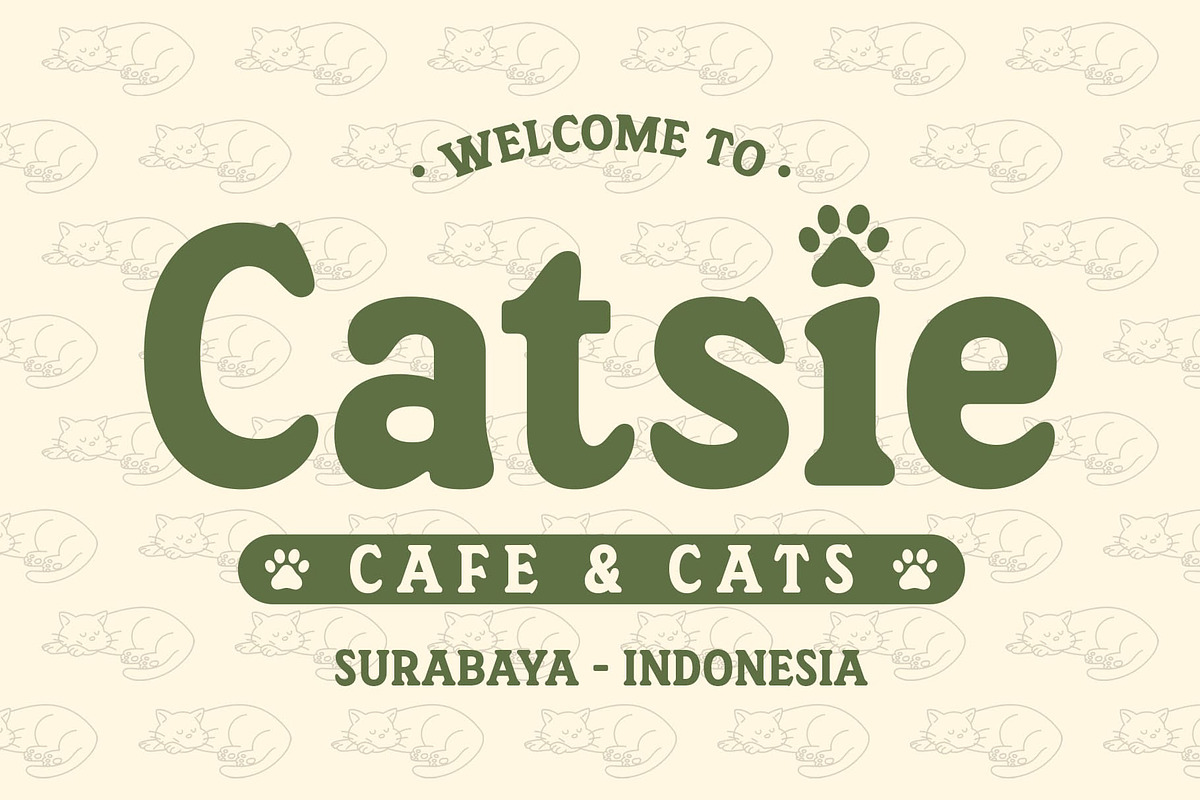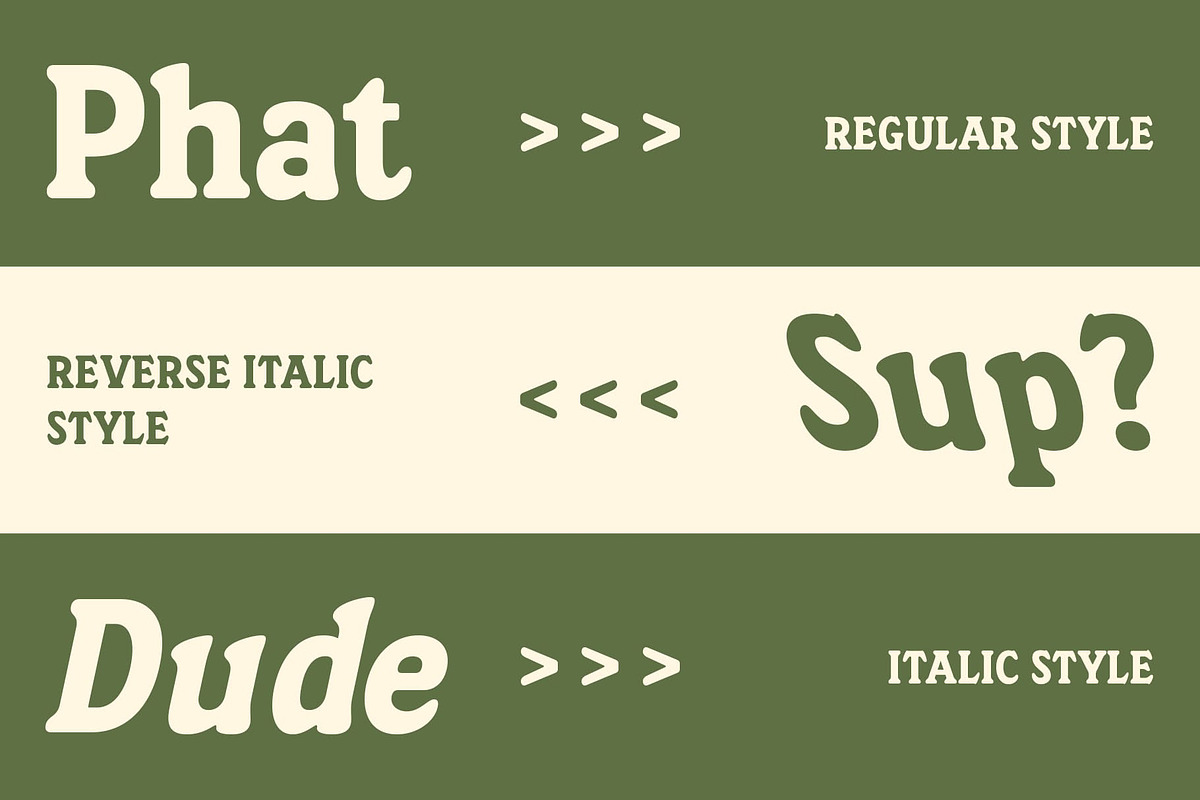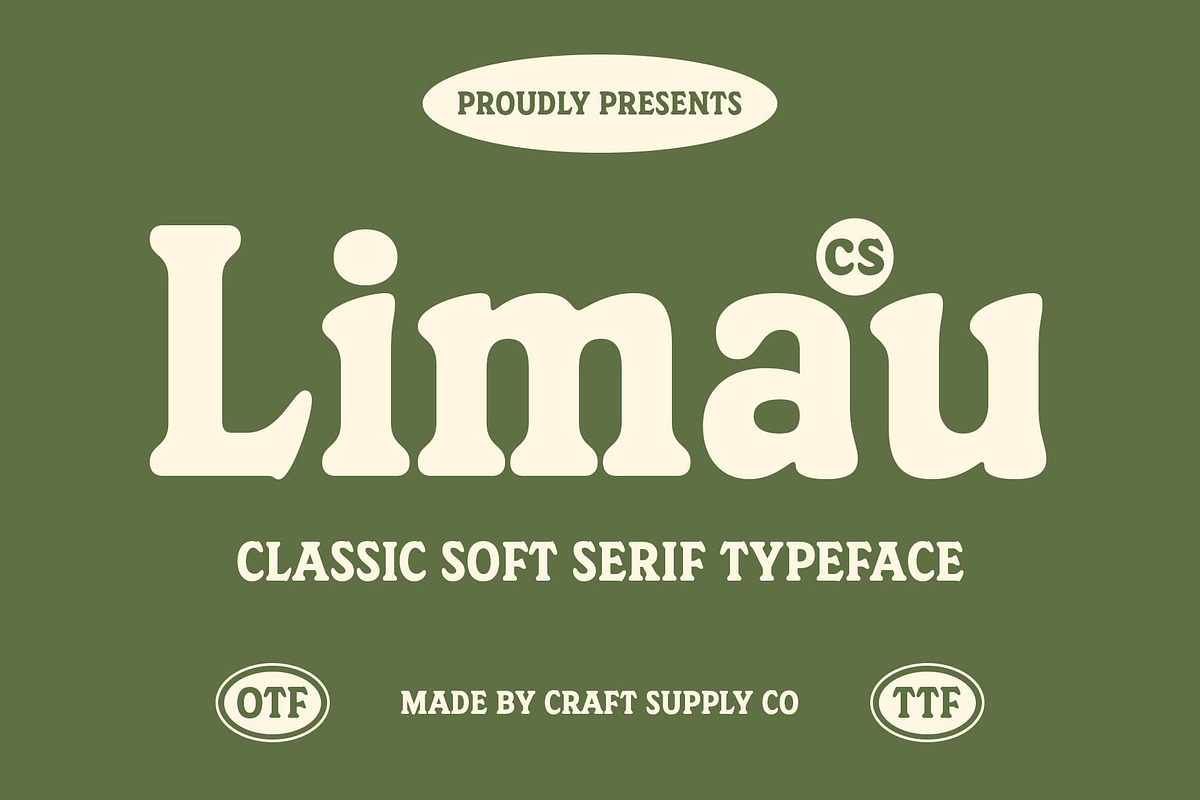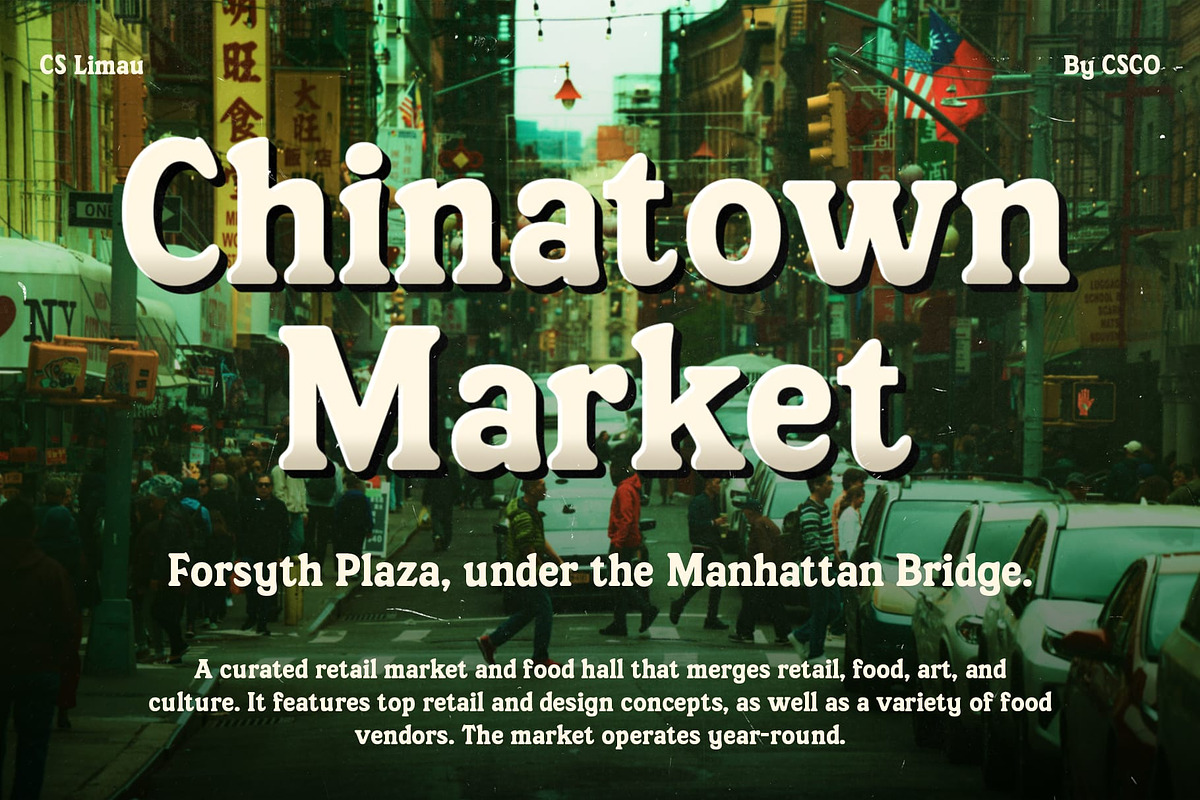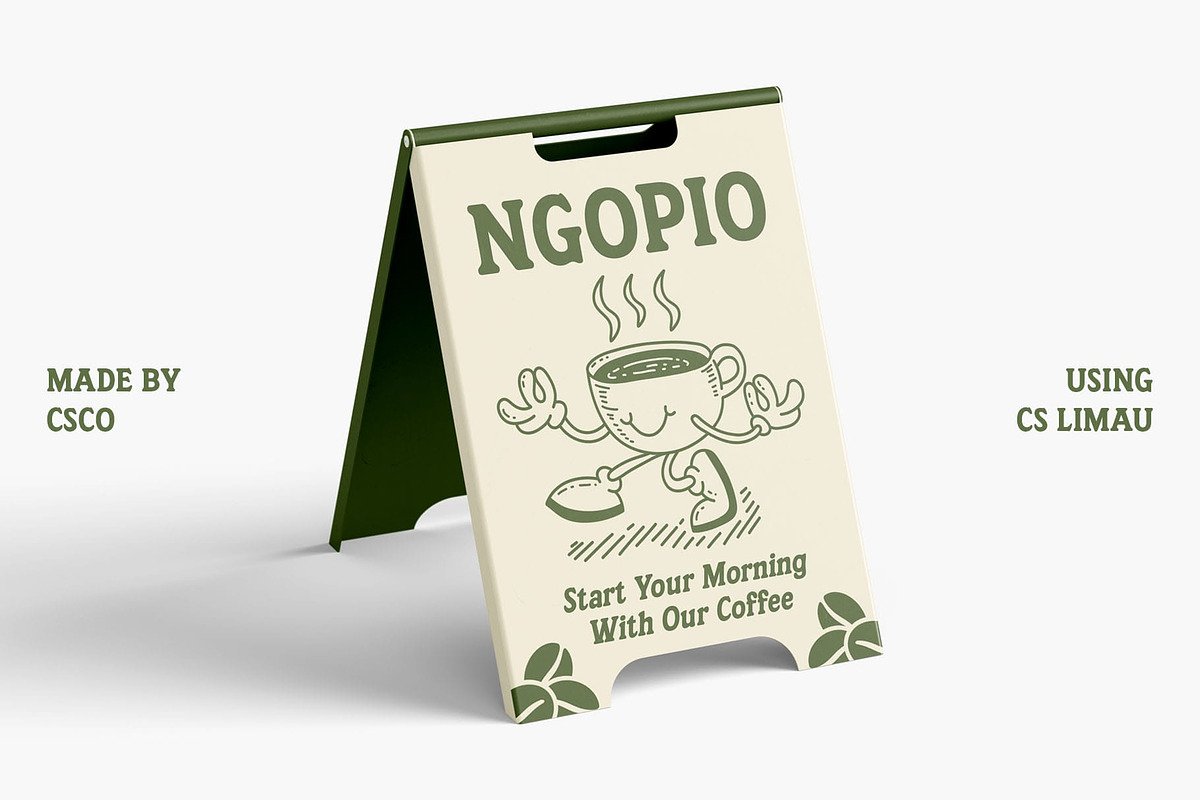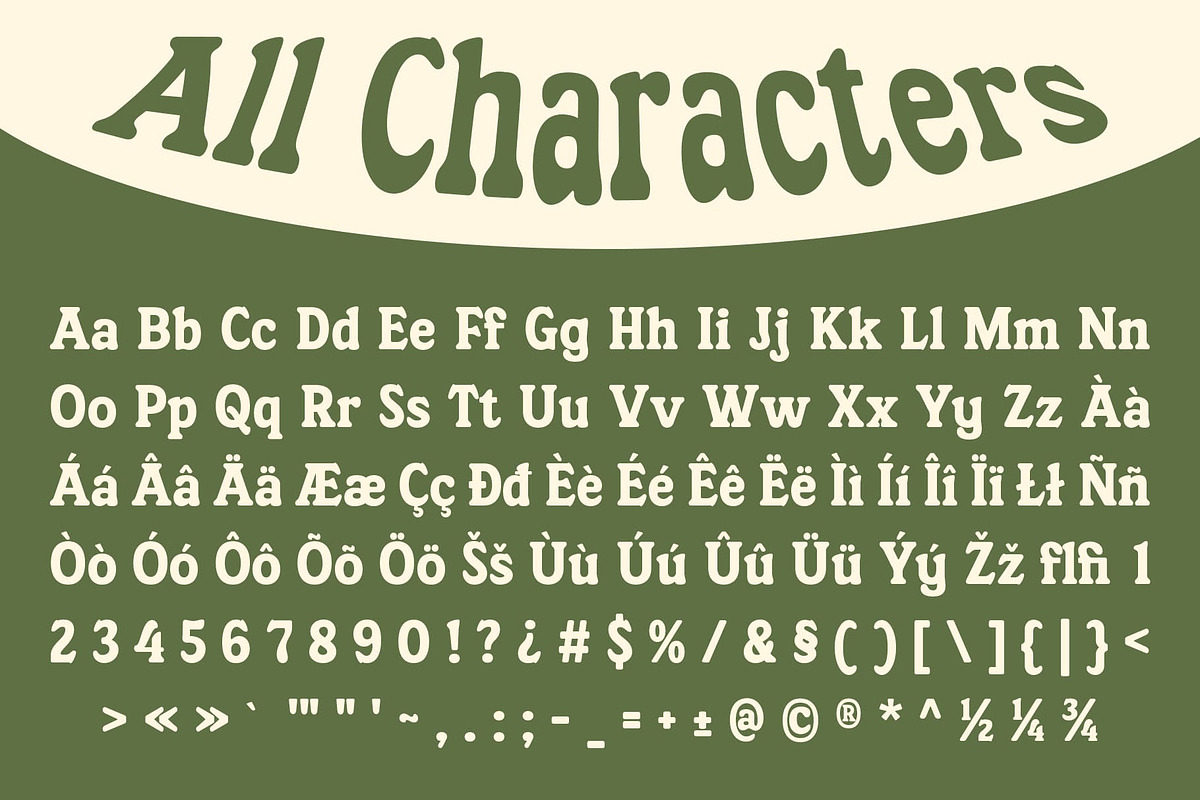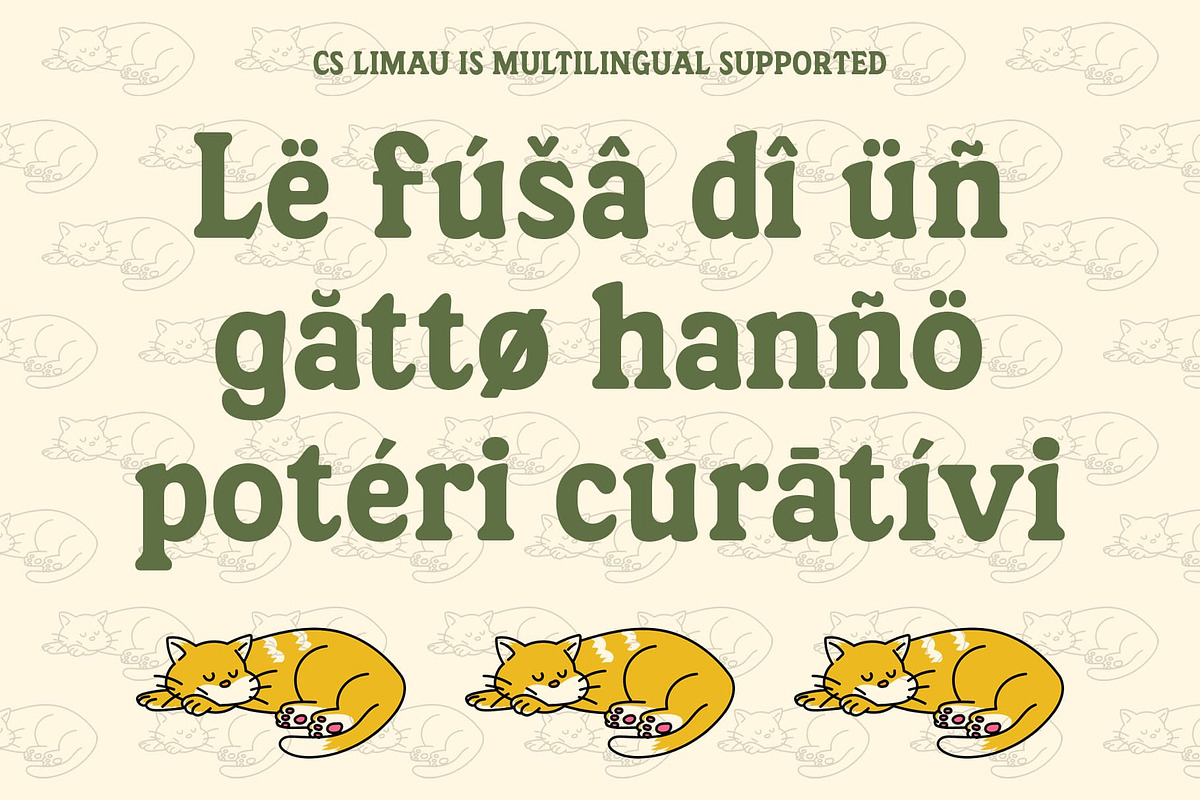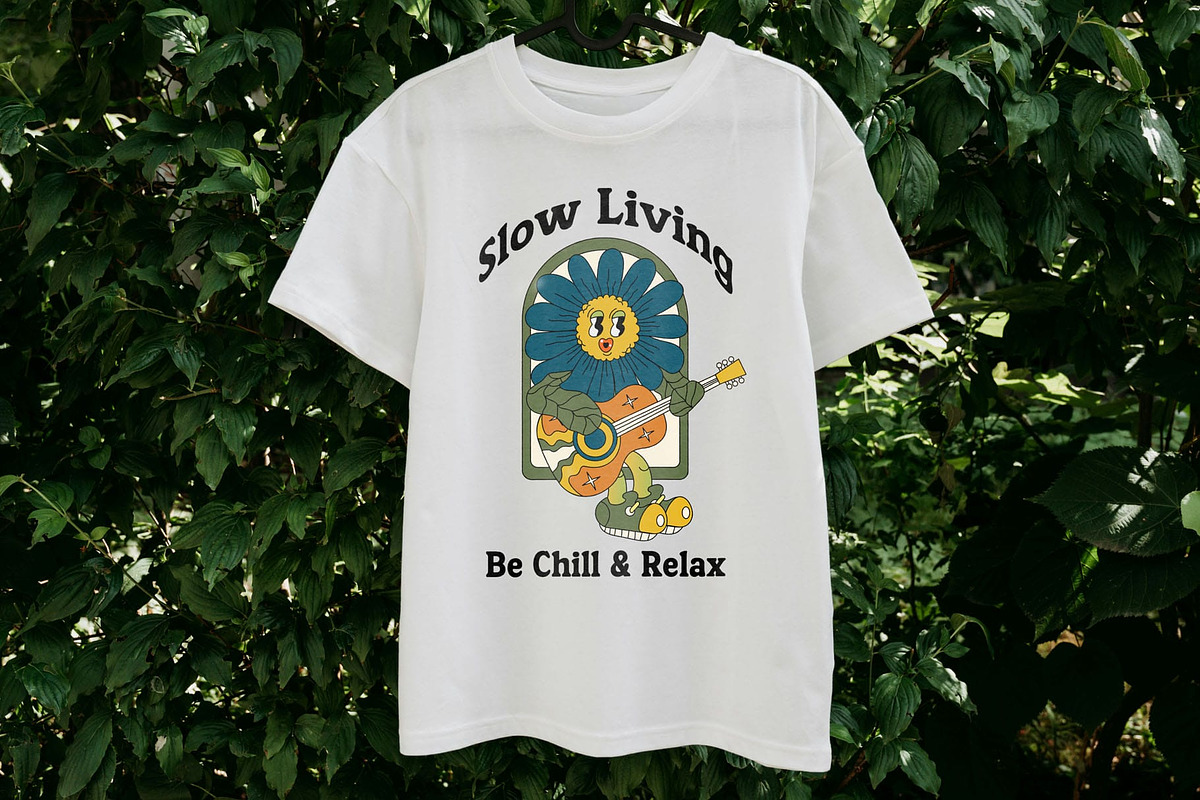
CS Limau – Bold Font
CS Limau – Bold Font: A Classic Slab Serif with a 90s Retro Vibe
Bold, Rounded, and Nostalgic CS Limau is a classic slab serif font with a bold, rounded shape and a distinctive 90s retro influence. Combining thick, strong serifs with soft, curved angles, it creates a perfect balance of boldness and approachability. The rounded edges give the font a friendly, warm vibe, while the thickness of the serifs ensures its presence is strong and impactful. This design exudes confidence and cheerfulness, making it ideal for a wide range of projects aiming to convey both strength and charm.
Retro 90s Inspiration Inspired by the iconic design aesthetics of the 1990s, CS Limau evokes a sense of nostalgia and playfulness. Its retro style is characterized by rounded letterforms and sharp contrast, which instantly brings to mind the vibrant, fun, and bold visual language of the ’90s. Whether you’re creating retro-style logos, posters, or branding materials, this font provides a modern take on nostalgic typography.
Perfect for Vintage & Modern Retro Designs Ideal for designs with a vintage or modern-retro theme, CS Limau brings a timeless appeal to any project. It’s particularly well-suited for logos, posters, branding, and digital media that want to create a strong, character-filled presence while nodding to the past.